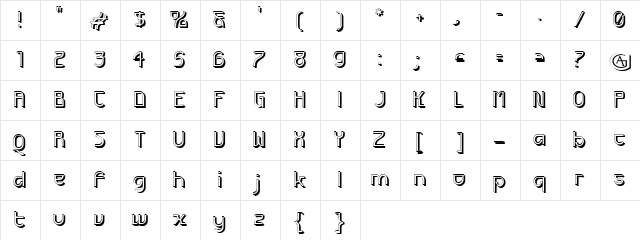
Futurex Deco Regular
Design Context for Futurex Deco Typeface
Futurex Deco channels digital-age aesthetics through its sharp, structured letterforms — ideal for brands that want to signal innovation.
Pro Tip: Use Futurex Deco in combination with a neutral sans for body text. Let it define the brand voice in headlines while keeping reading comfortable elsewhere.